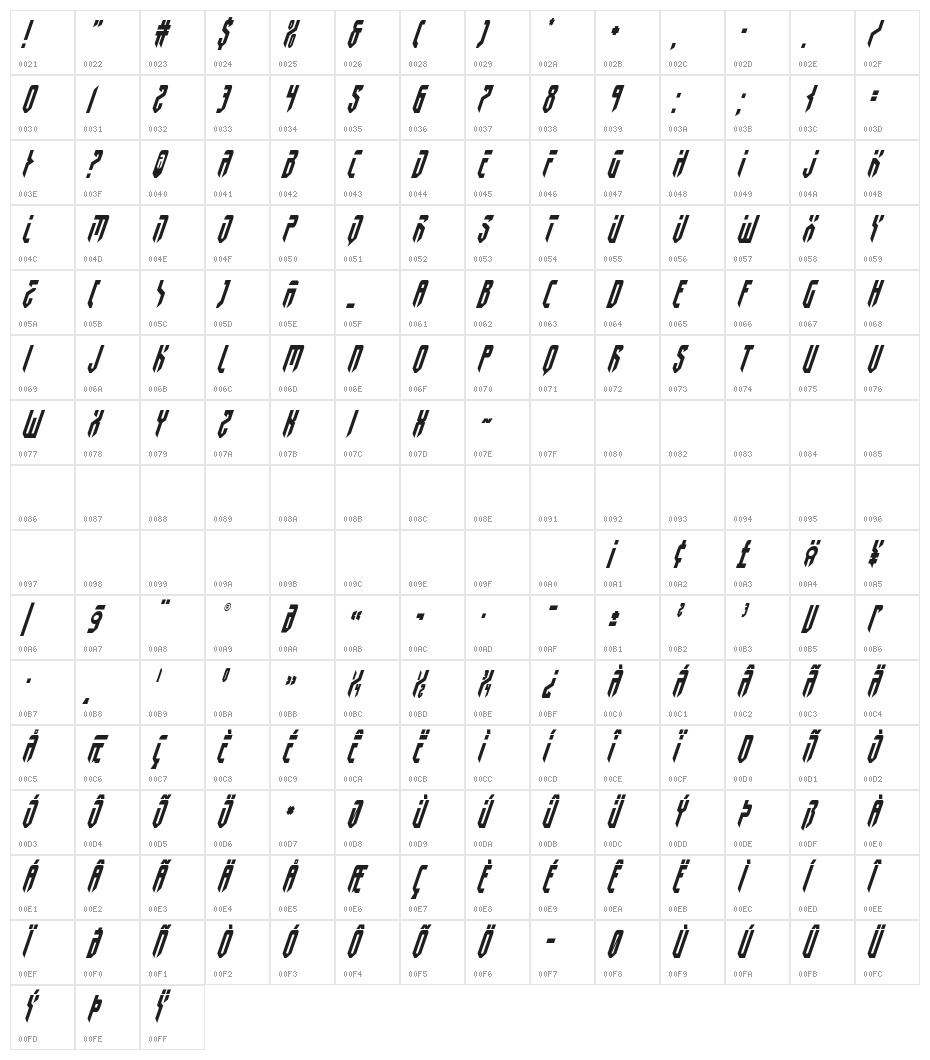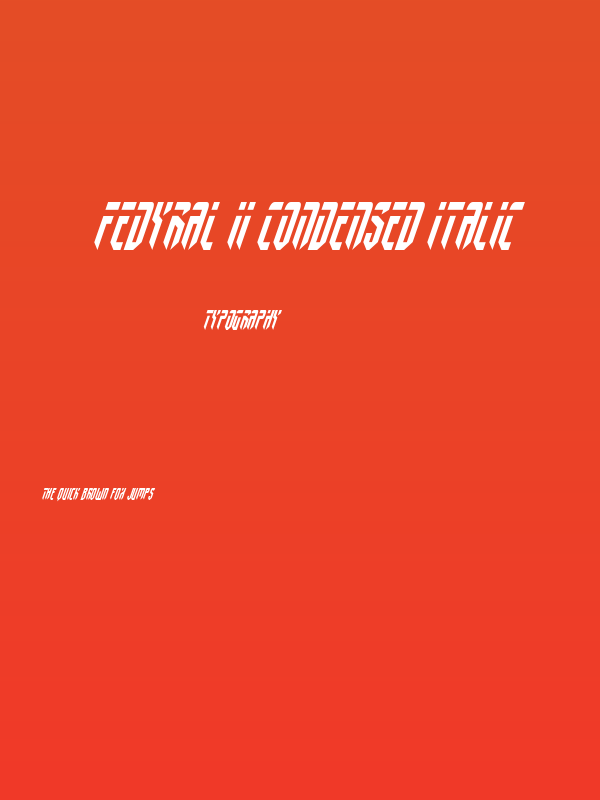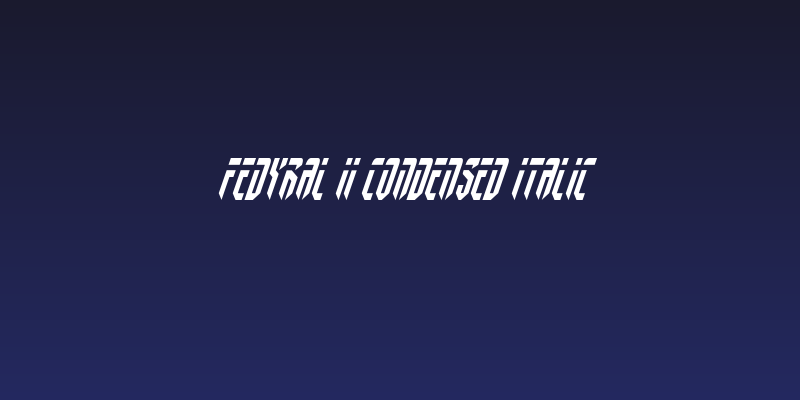
Fedyral II Condensed Italic Font
Fedyral II Condensed Italic Description
This font features a bold, angular design with a distinct italic slant, giving it a dynamic and futuristic appearance. The characters are condensed, enhancing the compactness and intensity of the text. The sharp edges and geometric shapes contribute to a modern and edgy aesthetic, making it stand out in any design. The uppercase letters are particularly striking, with a uniform height and consistent style across the alphabet. The numerals and special characters maintain the same bold and angular characteristics, ensuring a cohesive look throughout. This font is ideal for projects that require a strong visual impact and a contemporary feel.